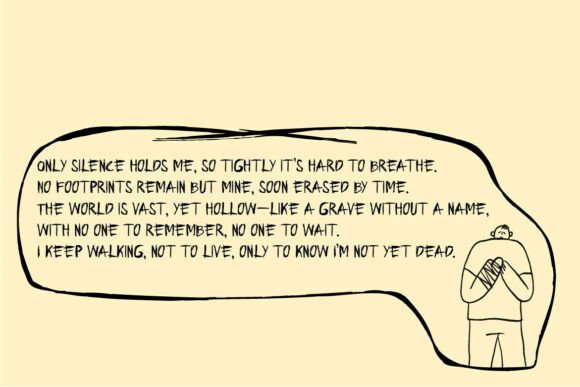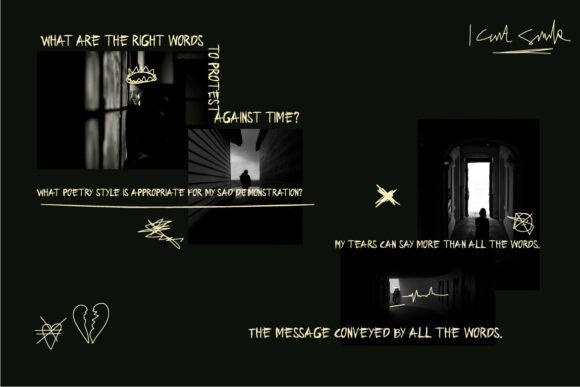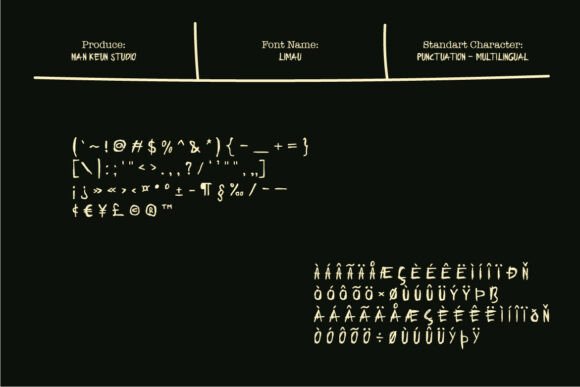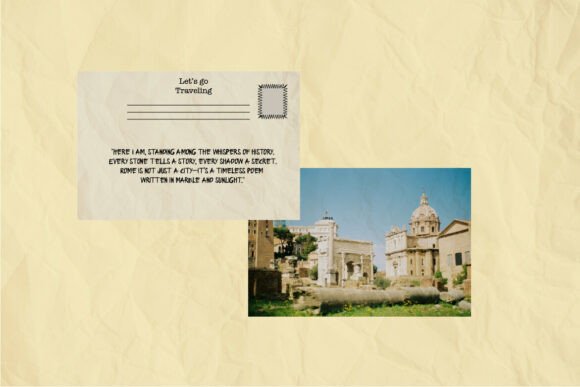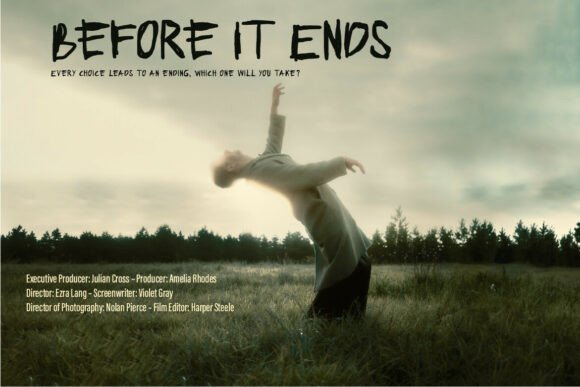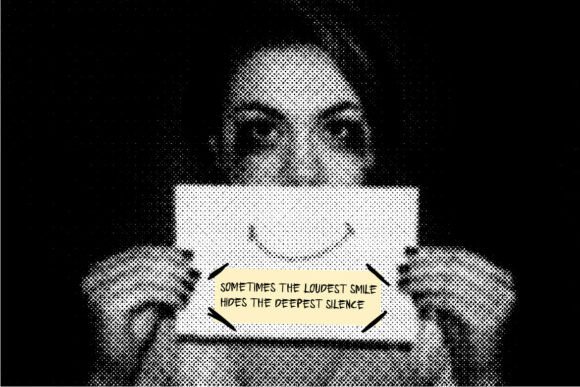
Introduction to Limau Font Font
Fonts play a crucial role in design, and the Limau Font font is a typeface that brings both character and versatility to any project. Whether you’re working on a branding project, a website, or a print design, the Limau Font font offers a unique style that can elevate your work.
Limau is a raw, unapologetic handwritten font that exudes a rebellious spirit and unfiltered energy.
Its jagged strokes and uneven lines are not flawsβtheyβre features Every letter feels hand-scratched into the surface, echoing raw emotion, tension, and artistic defiance.
Key Features of Limau Font Font
Why Choose Limau Font Font?
The Limau Font font is more than just a typeface β it’s a design tool that helps you communicate your message with style and clarity. Its unique character set and versatile design make it suitable for a wide range of applications, from elegant invitations to bold headlines.
With its carefully crafted letterforms and balanced proportions, the Limau Font font ensures readability and visual appeal across all mediums.
What makes Limau Font font special?
The Limau Font font stands out with its unique design, exceptional readability, and versatility across various design applications.